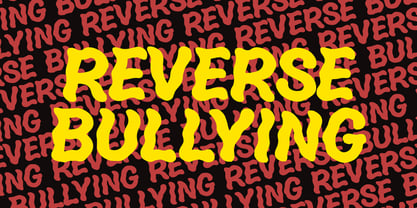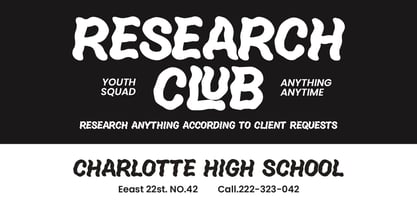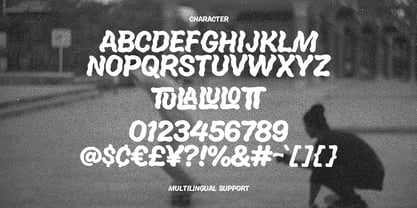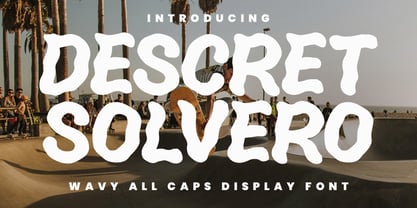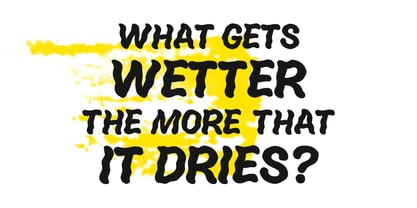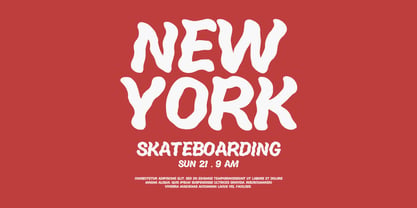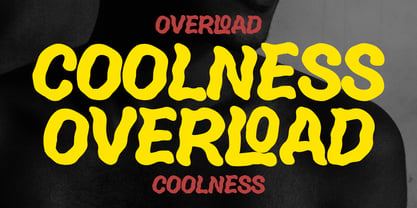
MC Descret Solvero
von Maulana Creative
Die Schriftfamilie MC Descret Solvero wurde von Gilang Maulana entworfen und von Maulana Creative veröffentlicht. MC Descret Solvero enthält 1 Stile. Mehr über diese Familie
Descret Solvero is a bold, energetic display font designed to make a statement. Characterized by its fluid, liquid like silhouettes and wavy aesthetic, this typeface captures a sense of movement and retro modern coolness. It breaks away from rigid structures, offering a hand drawn, psychedelic vibe that is both playful and impactful. Key Visual Characteristics: - Wavy & Distorted: Every character features organic, undulating edges that mimic a melting or underwater effect, giving it a unique psychedelic flair. - Heavyweight Impact: The thick, bold strokes ensure high visibility, making it perfect for headlines and large-scale designs. - All-Caps Versatility: Designed exclusively in uppercase, it maintains a consistent visual rhythm and a loud personality across all platforms. - Retro Skate Aesthetic: As seen in the promotional imagery, the font pairs perfectly with street culture, skateboarding brands, and Y2K-inspired graphics.
Designer: Gilang Maulana
Foundry: Maulana Creative